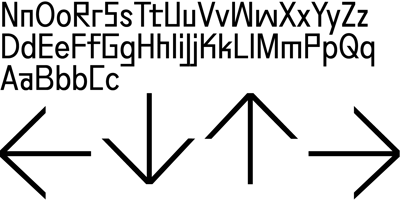
Grotesk Remix Font
Grotesk Remix Font is an exceptional choice for projects that demand a bold, contemporary, and highly versatile sans-serif aesthetic with a distinct, often unconventional twist. It's perfectly suited for cutting-edge branding, experimental editorial layouts, dynamic digital interfaces, unique event promotions, and any application where you need a strong, modern voice that pushes typographic boundaries. Imagine it gracing the identity of a new creative agency, providing a fresh and edgy feel for a tech conference website, or adding an unexpected, artistic touch to a modern art exhibition catalog. Its clean yet subtly deconstructed or re-imagined forms ensure your message is conveyed with both efficiency and undeniable modern appeal.
What makes Grotesk Remix Font so exciting is its remarkable ability to take the foundational principles of classic grotesk typefaces and infuse them with a fresh, innovative spirit. It offers excellent legibility while presenting a unique visual character that sets it apart from more traditional sans-serifs. This font isn't just about conveying information; it’s about making a statement of contemporary design, reflecting a willingness to innovate and reinterpret established norms. It empowers designers to create visuals that are not only effective but also subtly disruptive and truly memorable.
The Grotesk Remix Font family typically offers a comprehensive range of weights and styles to provide maximum design flexibility. You can expect to find a broad spectrum from a delicate Thin or Light, through a versatile Regular, to a commanding Bold or Black weight, often accompanied by corresponding italic versions. These variations ensure that whether you need subtle annotations or prominent headlines, the Grotesk Remix Font provides the foundational versatility to achieve a cohesive, cutting-edge, and highly professional design across all your platforms.